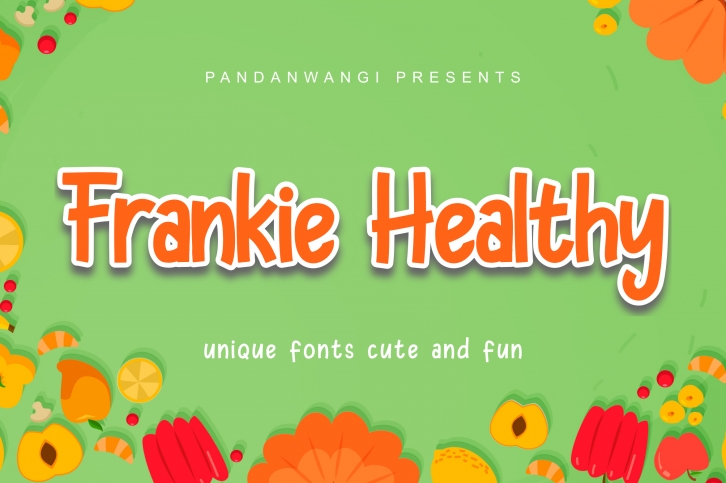
Frankie Healthy is a cute, colorful, and friendly display font. Get inspired by its authentic feel and use it to make beautiful and fun designs, eye-catching social media posts, and cute greeting cards.